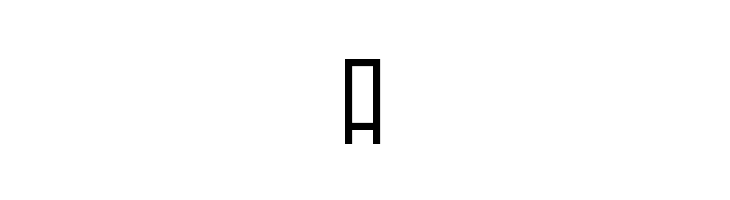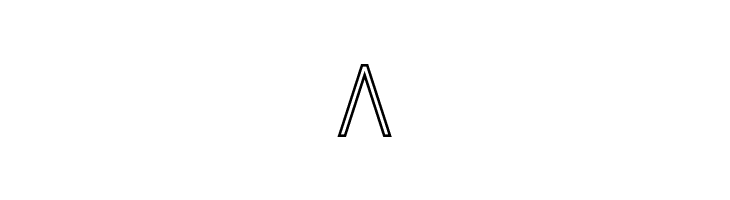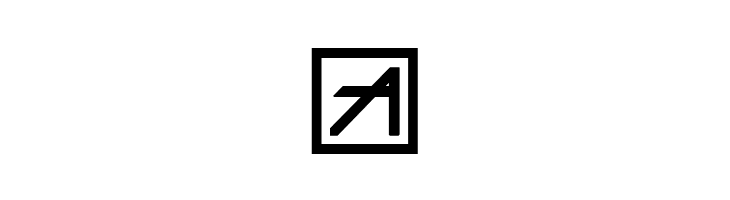
( GODZILLA ANIME )
A bold, angular font with a futuristic and mechanical design.
A bold, futuristic font with a striped, mechanical design.
A bold, futuristic font with sharp angles and a mechanical aesthetic.
A bold, 3D block-style font with a futuristic and mechanical design.
( Fonts by DeheL )
A bold, geometric font with a futuristic and mechanical style.
( Aleksandar Stevanov - www.behance.net/Stevanov )
A vintage, monospaced typewriter-style font with a rounded, mechanical appearance.
( Canale Studio, Inc. - Thomas Canale )
A bold, slab serif typewriter-style font with a vintage mechanical aesthetic.
( Chequered Ink - chequered.ink/ )
A bold, geometric font with a mechanical, futuristic design.
( Chris Fiedler - www.chrisdesign.wordpress.com )
A futuristic, bold font with a mechanical and digital aesthetic.
( Darrell Flood )
A futuristic, geometric font with sharp angles and a mechanical aesthetic.
A bold, italicized font with a futuristic and mechanical design.
A bold, angular font with a futuristic and mechanical design.
A bold, futuristic font with a halftone effect and dynamic, mechanical design.
A bold, angular font with a futuristic and mechanical aesthetic.
( Jaduger Design Studio - www.jaduger.com )
A bold, vintage typewriter-style slab serif font with a rugged, mechanical feel.
( Khiro )
A geometric, futuristic font with a mechanical and technical aesthetic.
( Khiro )
A modern, geometric font with a mechanical and futuristic design.
( M#rm#n - Mar Man )
A geometric, monospaced display font with a mechanical, architectural style.
( Michael Hanley )
A geometric, industrial-style font with a futuristic and mechanical appearance.
( Peter Olexa - www.dealjumbo.com )
A bold, industrial font with a distressed, grunge texture and angular design.
( TwoNineFive - Maximillian Limpo )
A bold, geometric font with a futuristic and mechanical design.
A futuristic, hollow font with a mechanical and geometric design.
A bold, italicized font with a futuristic, mechanical design and rounded edges.
A bold, futuristic font with a mechanical and industrial aesthetic.
A geometric, angular font with a futuristic and mechanical style.
( !Exclamachine Type Foundry - exclamachine.com/ )
A geometric, boxed font with a modern, mechanical style.
( !Exclamachine Type Foundry - exclamachine.com/ )
A bold, geometric font with characters enclosed in square outlines, offering a modern and mechanical look.